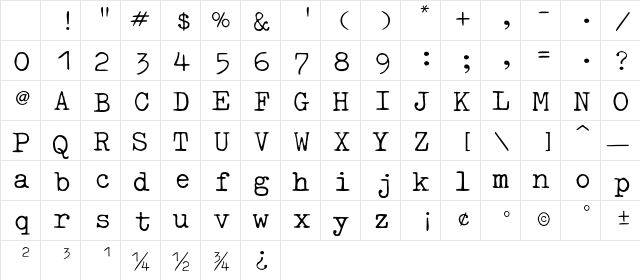
Complete TypewriterType Regular glyph index. Displaying only characters natively supported by TypewriterType Regular font.
TypewriterType uses fixed-width spacing throughout, giving it the structured, systematic character associated with coding environments and technical documentation.
Pro Tip: Use TypewriterType with slightly increased line-height for extended reading - fixed-width spacing can feel dense in longer passages without extra breathing room.